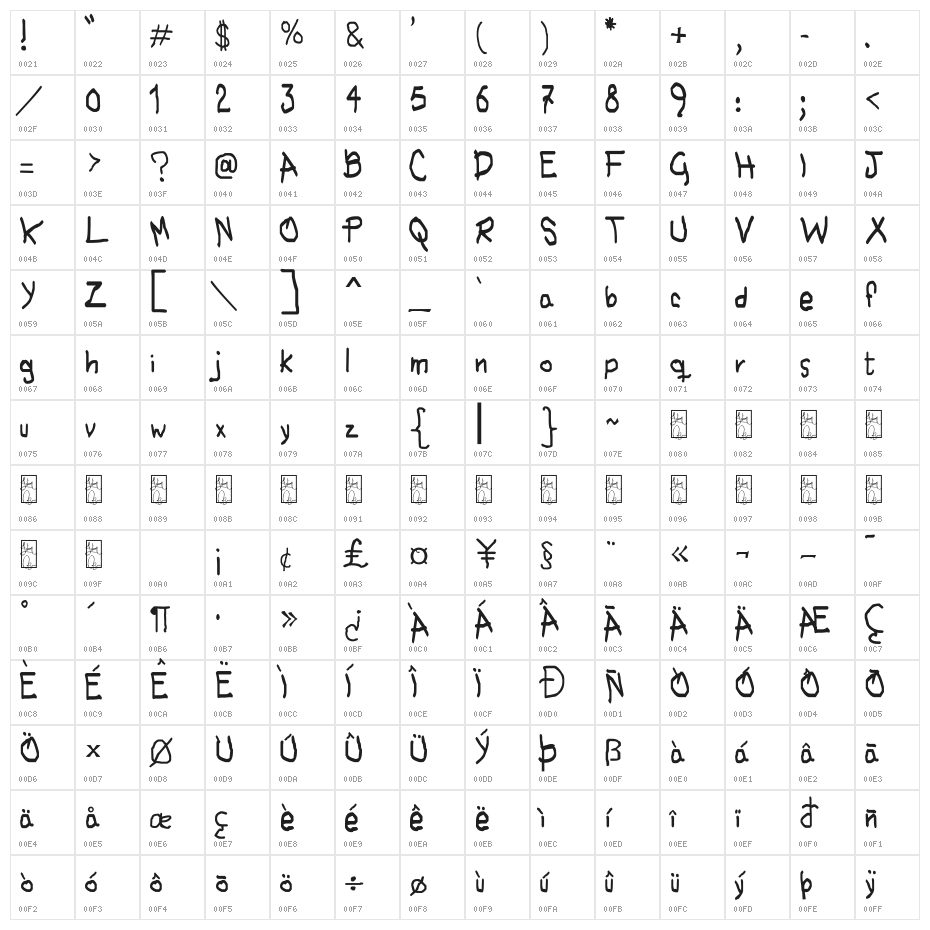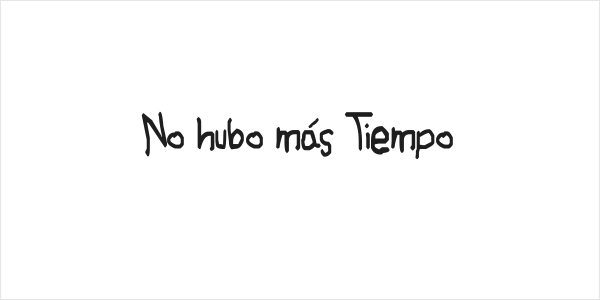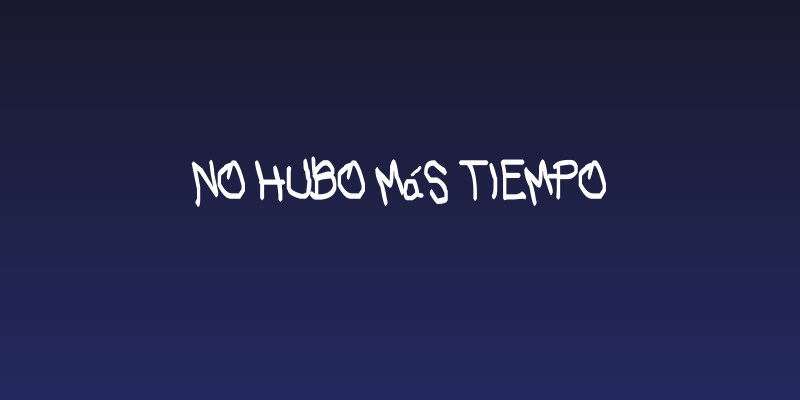
No hubo más Tiempo Font
No hubo más Tiempo Description
This font features a playful and informal handwritten style, characterized by its uneven strokes and casual appearance. The letters are slightly irregular, giving it a whimsical and personal touch. The uppercase and lowercase letters maintain a consistent style, with rounded edges and a slightly tilted orientation. The numbers and special characters follow the same playful design, making the font suitable for creative and informal projects. The overall look is reminiscent of a child's handwriting or a casual note, adding a sense of warmth and friendliness.
| Proposed Projects | Ideal for children's books, greeting cards, personal notes, and informal branding. |